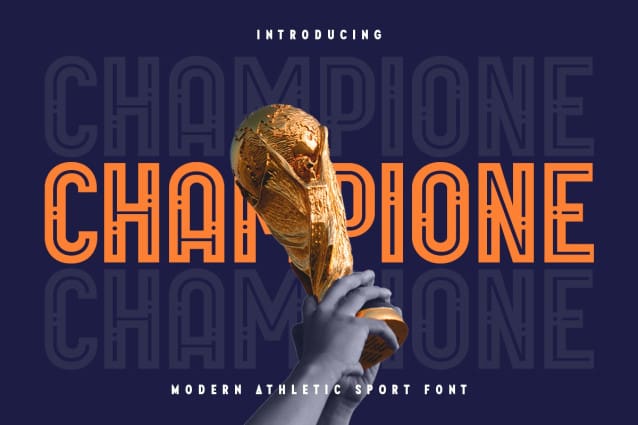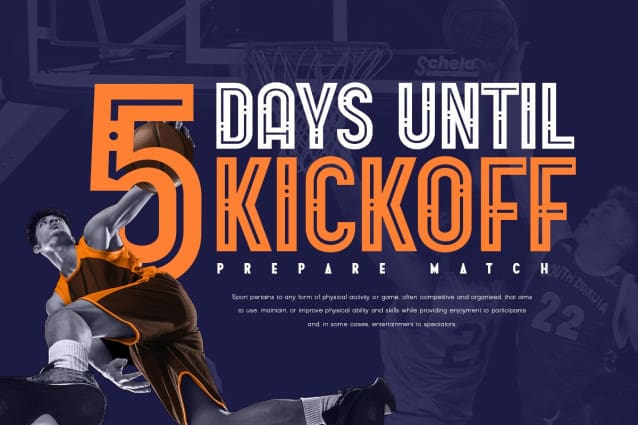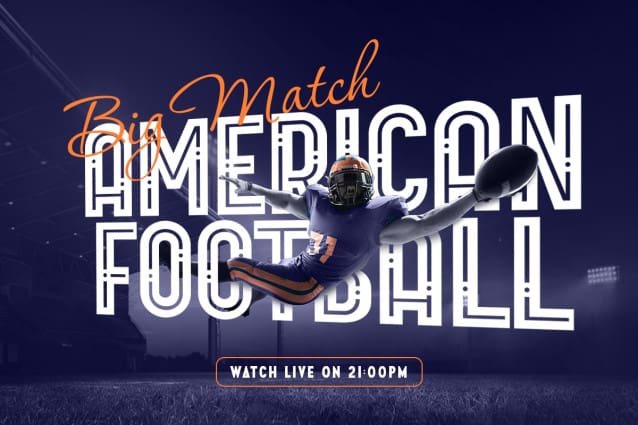
Champione Athletic Sport Font
Champione Athletic Sport Font is a a Modern Futuristic Sport Font that stylish, fancy and unique characters are ready for Sport event, that you can combine to get any variations and unique shapes easily just in seconds with great characters. It is a Sans Serif Bold font that perfect for sport branding projects, jersey, logo, wedding designs, social media posts, advertisements, product packaging, product designs, label, watermark, and any projects, it makes with a high level of legibility.